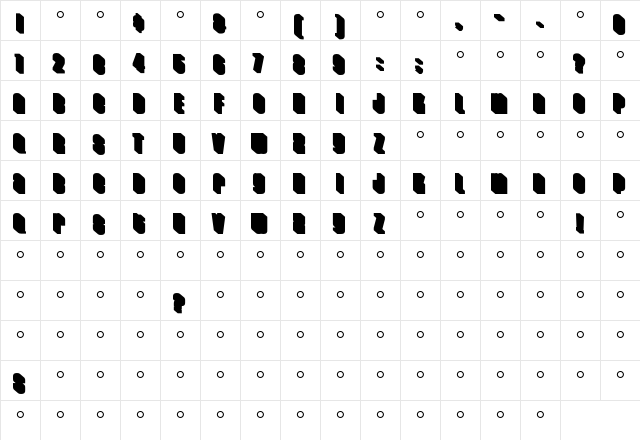
HouseGothic 3DShadow
Design Context for HouseGothic Typeface
HouseGothic brings ornamental detail and strong personality to headlines and identities, where visual impact matters more than quiet functionality.
Font Pairing: Pair with a clean neutral sans-serif for body copy to let HouseGothic's character lead without overwhelming the composition.
Pro Tip: Use HouseGothic exclusively at display sizes — it was designed to be seen, not read at length. Let a neutral companion handle body copy.